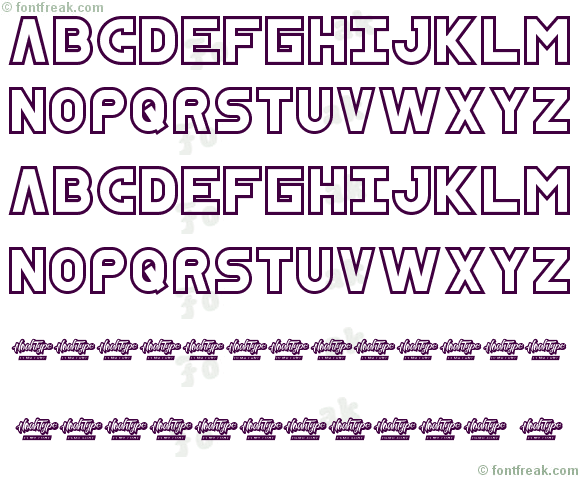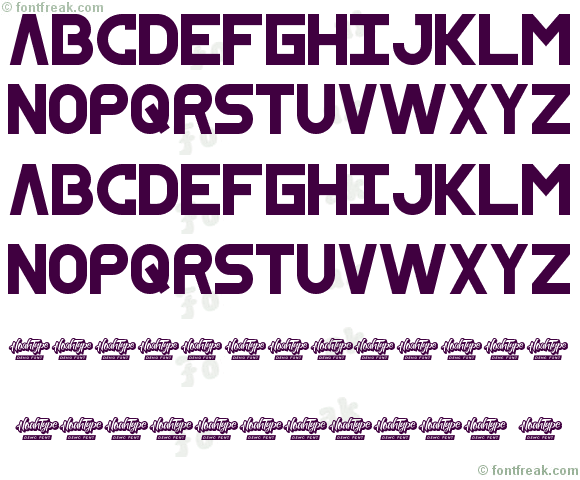
SkyMid Demo
SkyMid Demo Outline
About SkyMid Demo
SkyMid Demo is a striking display font designed by Noah Type, characterized by its bold and modern outline style. This font falls into the decorative category, making it perfect for projects that require a touch of flair and creativity. The visual characteristics of SkyMid Demo are particularly captivating, featuring a thick stroke weight that lends itself to high visibility. The absence of interior fills creates a unique outline effect, giving it a contemporary and airy feel. The spacing is well-balanced, allowing for easy readability while maintaining an artistic edge.
This font is versatile and can be effectively utilized in a variety of design contexts. It is an excellent choice for wedding invitations, where its distinctive outline can add elegance and sophistication to the overall aesthetic. Additionally, SkyMid Demo works wonderfully for movie posters, helping to capture attention with its bold presence. Restaurant menus can benefit from this font as well, giving diners a modern yet welcoming vibe. Furthermore, content creators looking to enhance their social media graphics or branding materials will find this font to be an excellent asset.
What sets SkyMid Demo apart is its ability to combine modernity with artistic expression. Its bold outline design not only commands attention but also allows for creative flexibility, making it an ideal choice for a wide range of applications. Whether you’re designing for print or digital media, SkyMid Demo is sure to make a lasting impression.